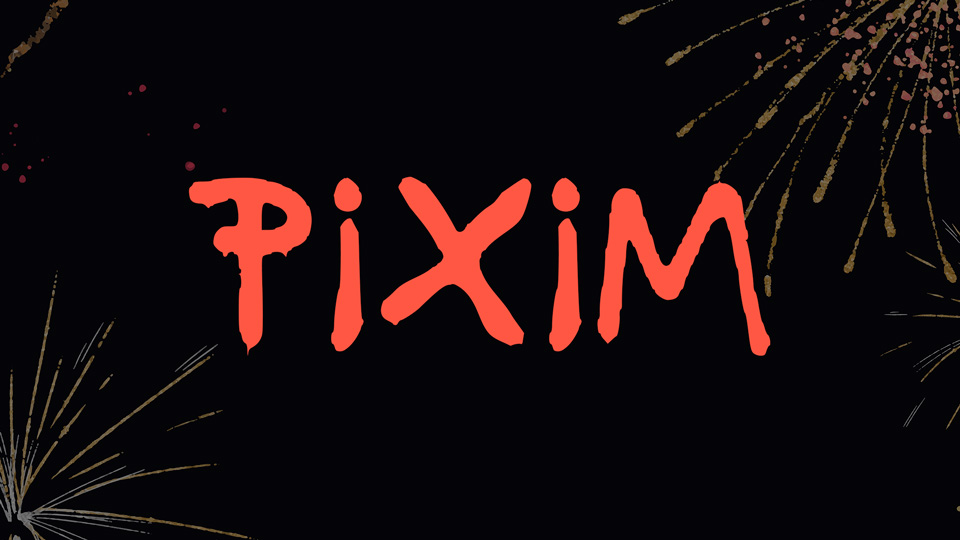
Feb 7, 2025Script & HandwrittenPixim Font Pixim is a grungy hand painted brush font with imperfections and paint spills. The perfect choice for use on posters, album covers, books and much more. Font DetailsDesigned by: Yan AmorimWebsiteLicense: Free for commercial use Download Pixim FontFile size: 144.68 KBCreated: February 16, 2025Updated: February 16, 2025 Download Explore related fonts Royal Kingsman Font Tink Real Font Againts Font Secret Solver Font Righman Font Horizon Stylish Font Nelyx Brush Font Black Rusher Font # Brush# Creepy# Graffiti# Grunge# Halloween# Handwriting# Spooky